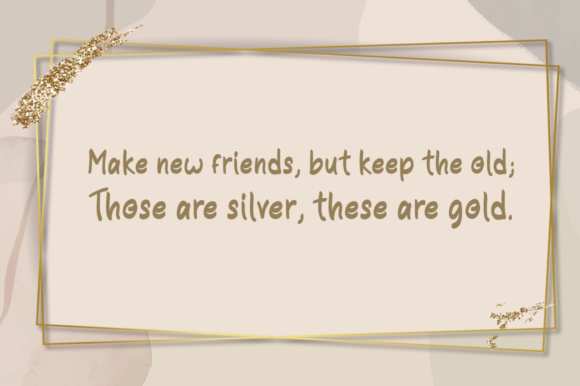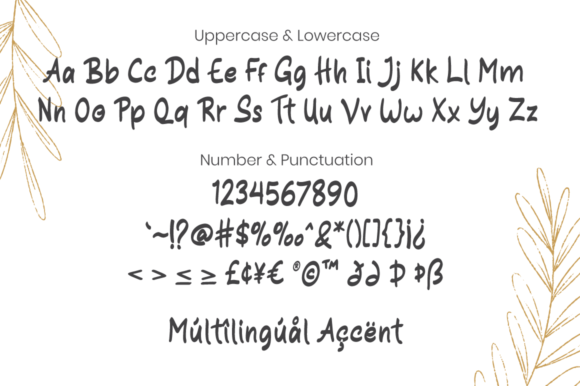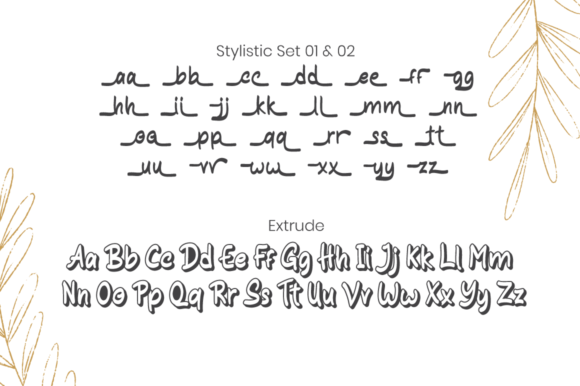
About Alunta Font
Alunta is a simple and flowing handwritten font. This adaptable font will look great on a variety of design ideas. It will add a fun and friendly touch to each of your projects!